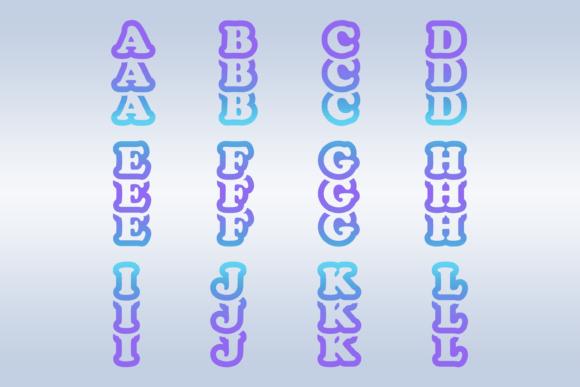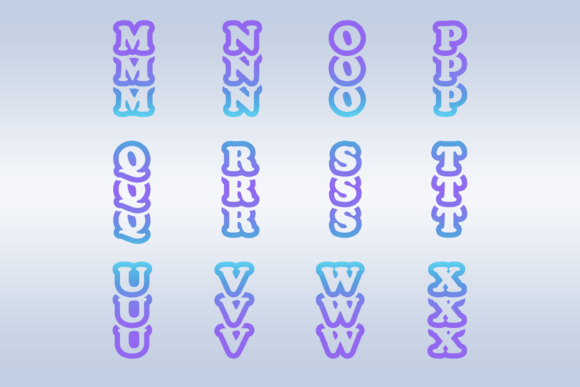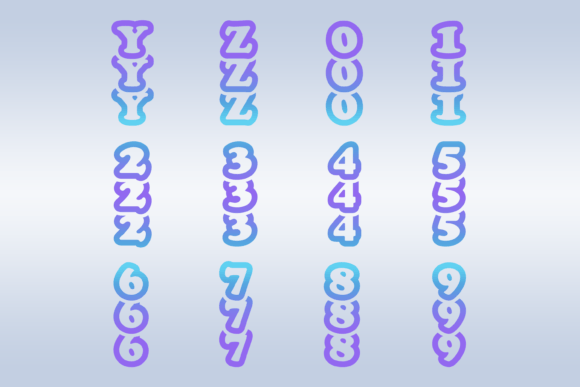
Unleashing Your Creativity with Custom Font
Have you ever stared at a blank canvas, eager to bring your creative vision to life, but struggling to find the perfect font to match your artistic style? I know I have! There’s nothing quite like the thrill of watching your ideas come together, and the right font can be the difference between a good design and a great one.
Enter Custom Font, the ultimate solution for designers and creatives seeking a unique and personalized touch. This versatile font is perfect for custom designs, DIY crafts, and any project that requires a special something. Whether you’re a seasoned pro or a hobbyist, Custom Font offers endless possibilities for self-expression and creativity.
As a valuable tool for designers, Custom Font allows you to add a personal touch to your work, setting it apart from the ordinary. With its customizability and flexibility, you can experiment with new ideas and bring your imagination to life.
Key Features of Custom Font
- Unique Characteristics: Custom fonts can be designed to include unique characteristics such as variable font weights, italic and bold styles, and special ligatures that can enhance the visual appeal of text.
Custom Font Review
Overall, I was pretty impressed with the Custom Font I received. Here’s what I liked: ✨
- Unique style: The font had a distinct, one-of-a-kind look that really stood out.
- Good legibility: Despite its unusual design, the font was still easy to read.
However, there were a few things that didn’t quite meet my expectations: ⚠️
- Limited character set: The font didn’t include as many characters as I would have liked, which made it difficult to use in certain situations.
- No font variations: The font was only available in a single weight and style, which limited its versatility.
- Bugs in the font editor: The font editor had a few bugs that made it difficult to customize the font.
Overall, I would give the Custom Font 3.5 out of 5 stars. It’s a great option for designers who want a unique font, but it may not be the best choice for projects that require a lot of customization or a large character set.
Experiment with different font styles and sizes to create a unique visual identity. Use custom fonts to highlight important text or create a sense of hierarchy in your design.
Custom fonts are ideal for branding, logo design, and marketing materials. They can also be used to create a distinctive look for social media graphics, presentations, and documents.